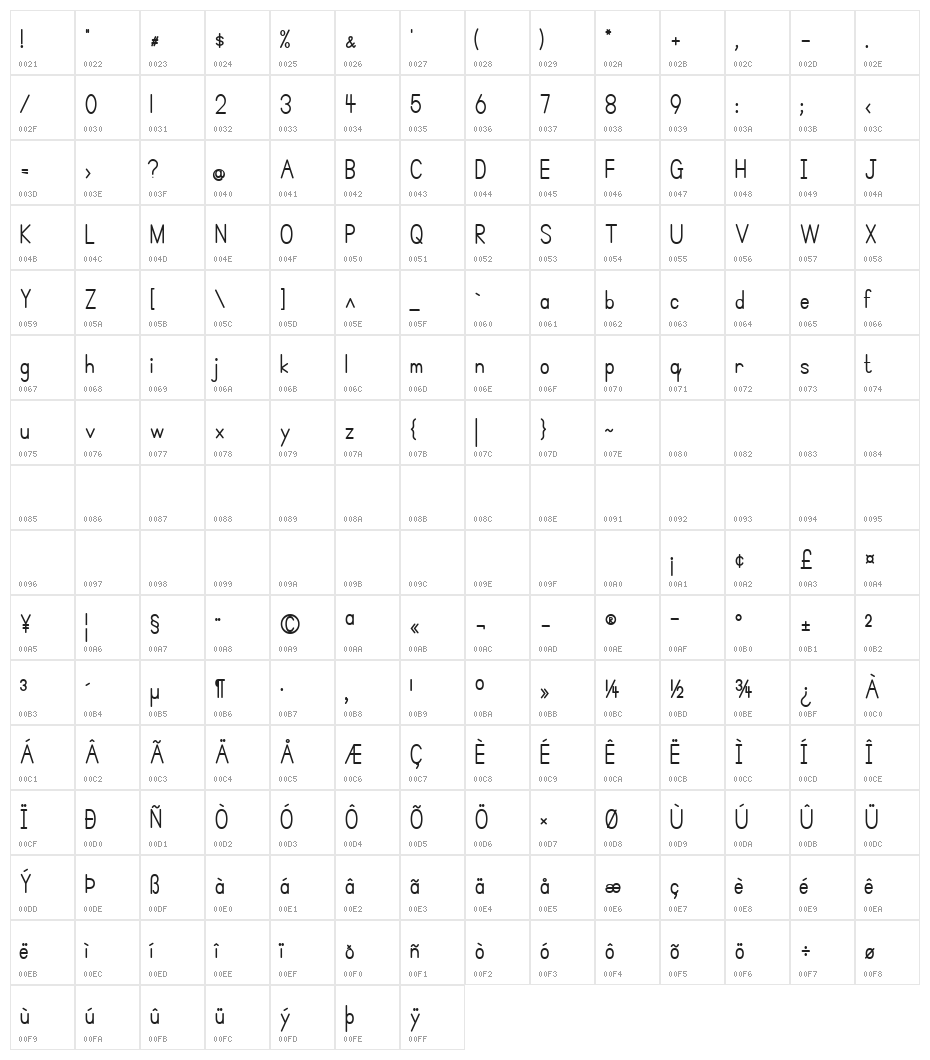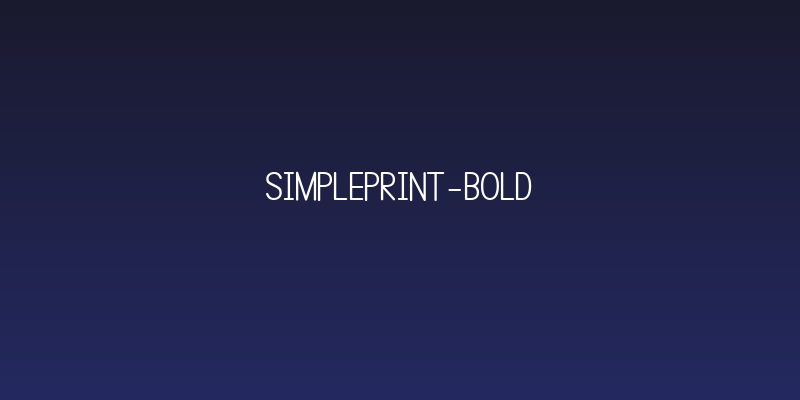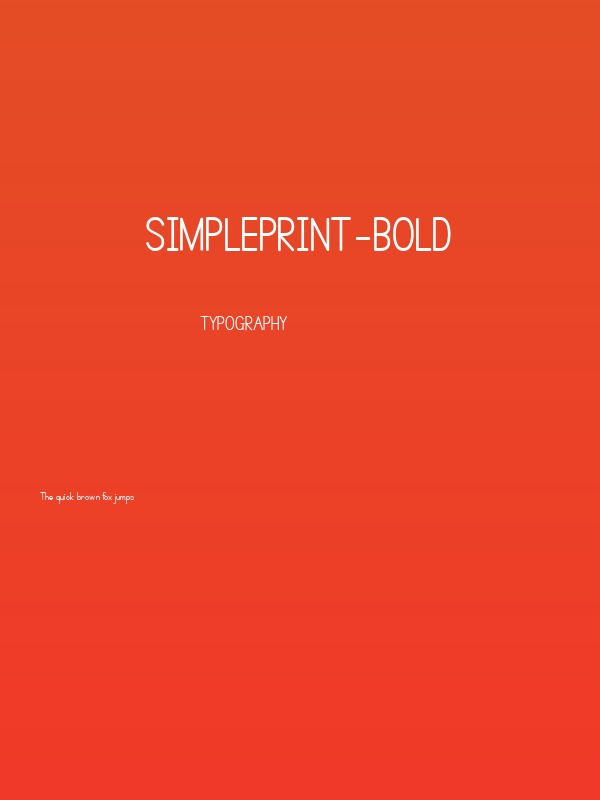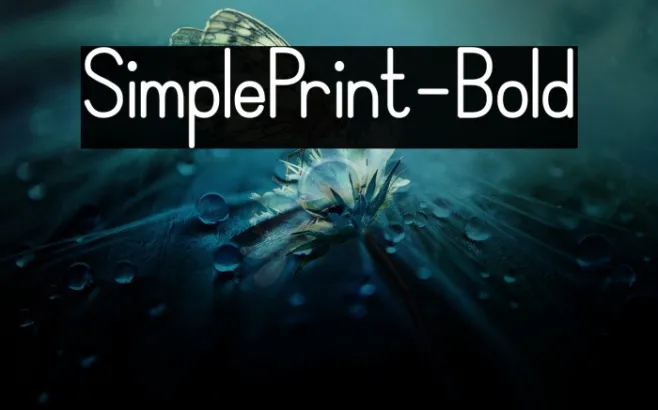
SimplePrint-Bold Font
SimplePrint-Bold Description
This font features a clean and straightforward design with a modern touch. The characters are evenly spaced, providing a balanced and readable appearance. The uppercase letters are tall and slightly narrow, while the lowercase letters maintain a consistent height, contributing to a cohesive look. The numerals are clear and distinct, ensuring legibility in various contexts. Special characters are well-defined, making them suitable for a range of applications. The overall style is simple yet effective, making it versatile for different design needs.